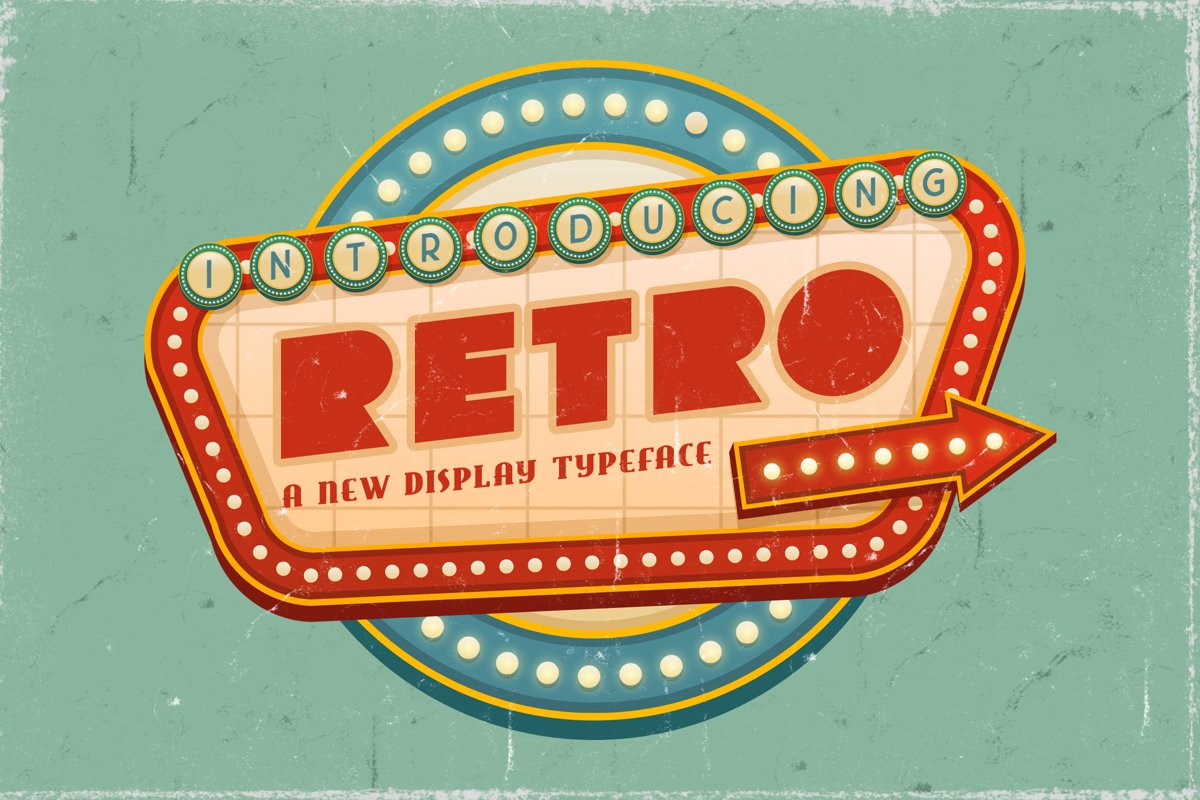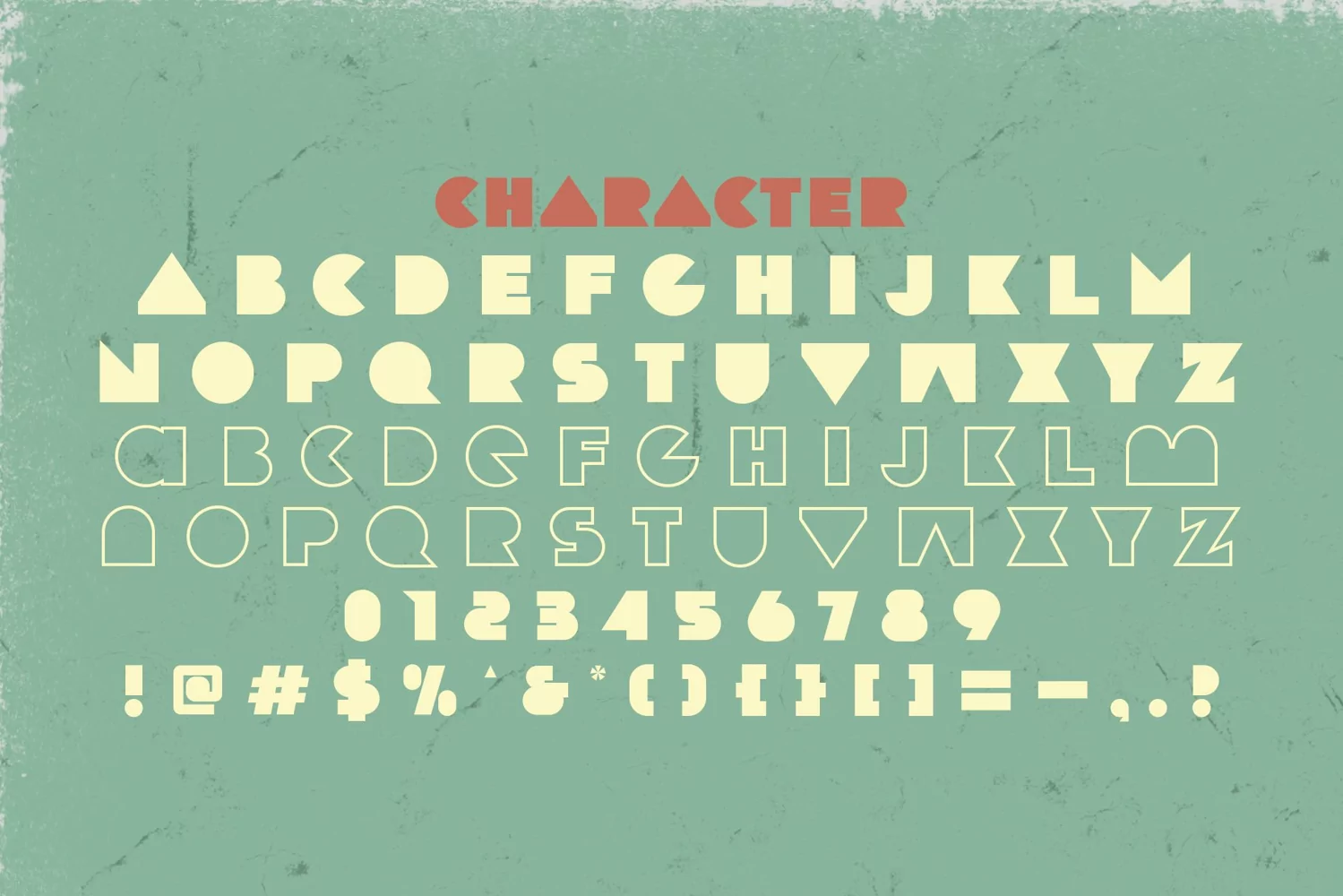
Retro is a display Typeface. Perfect for display, quotes, logo, logotype, emblem, badges, header, tittle, crafting needs, mockup, packaging, t-shirt, merchandise, and many more.